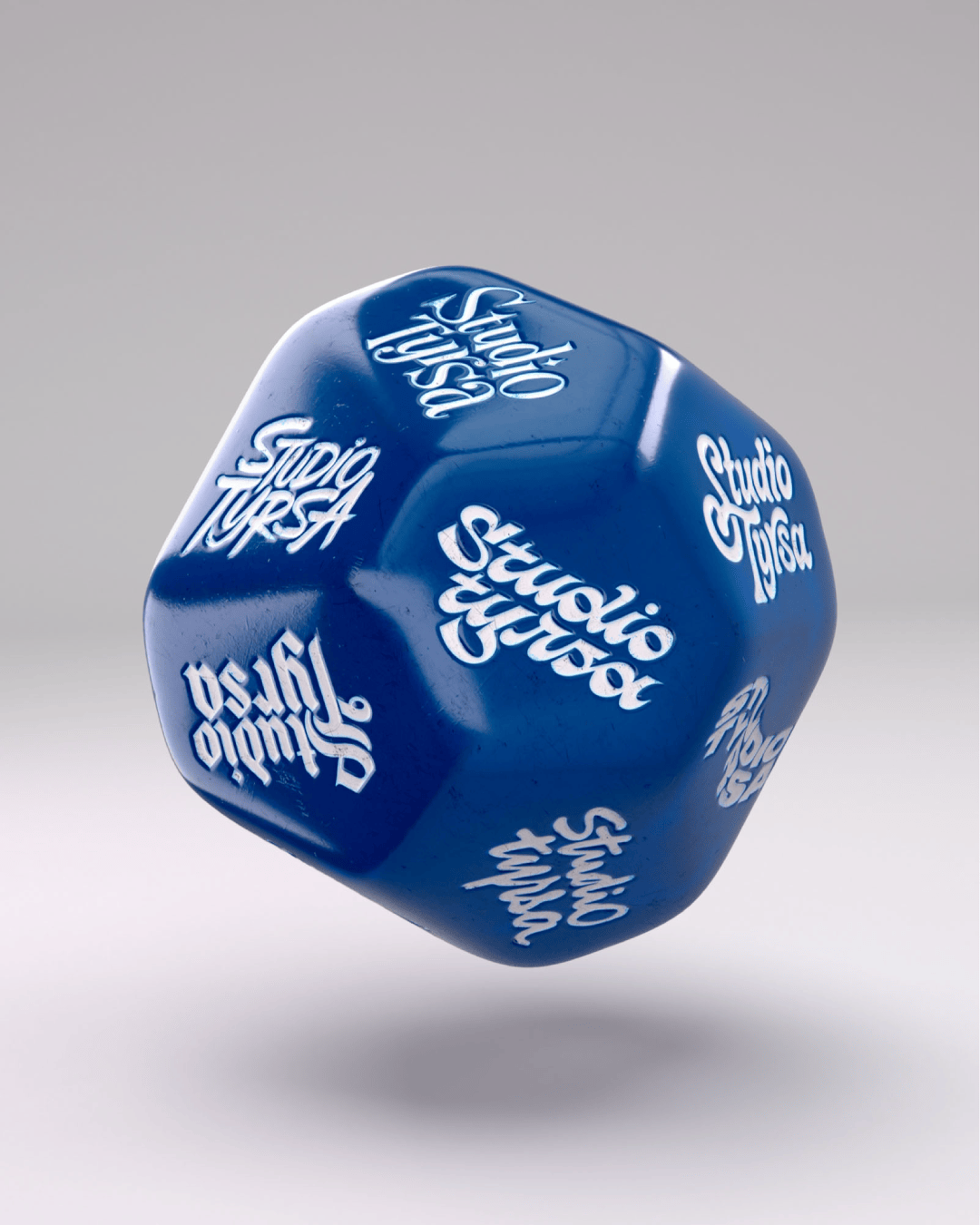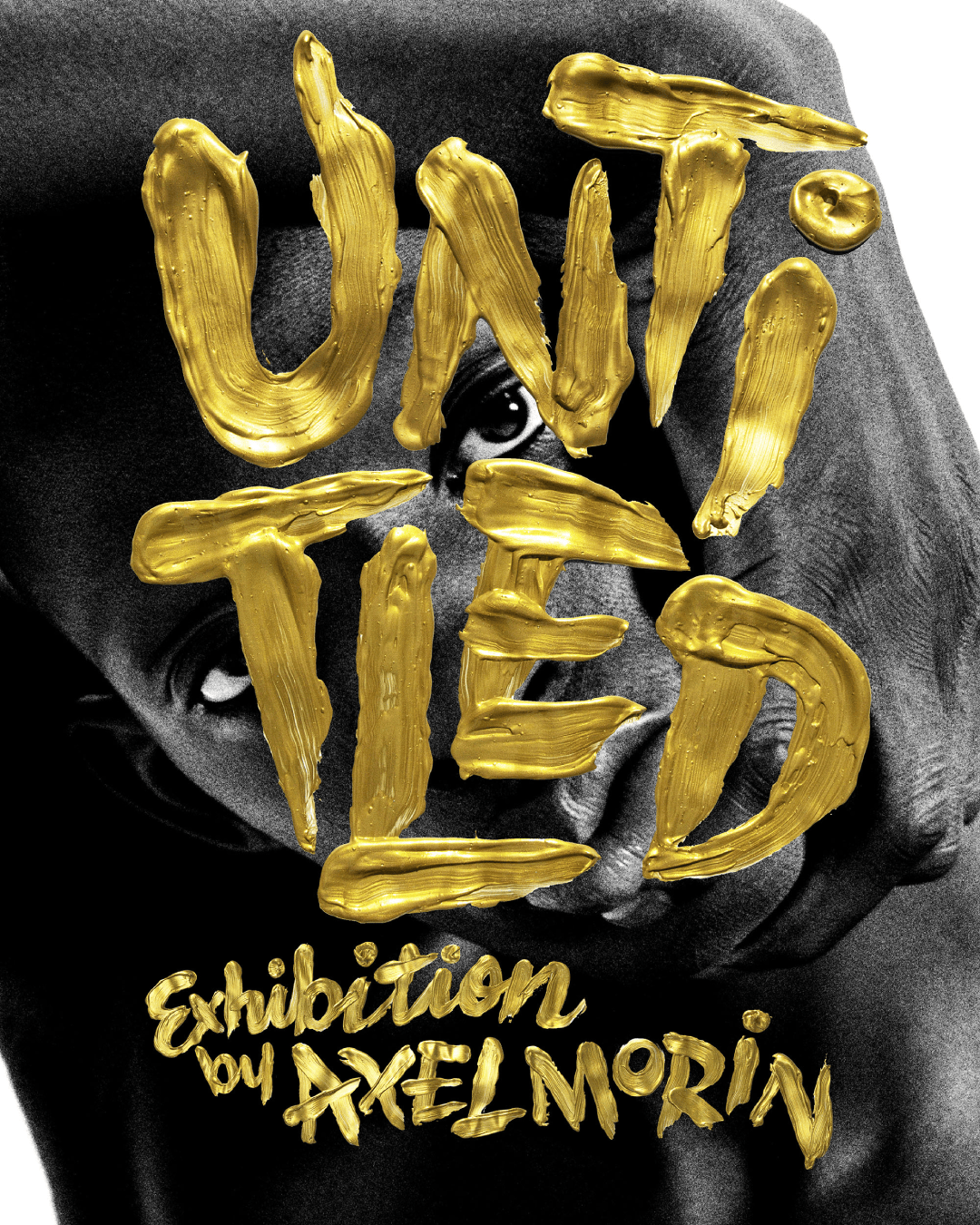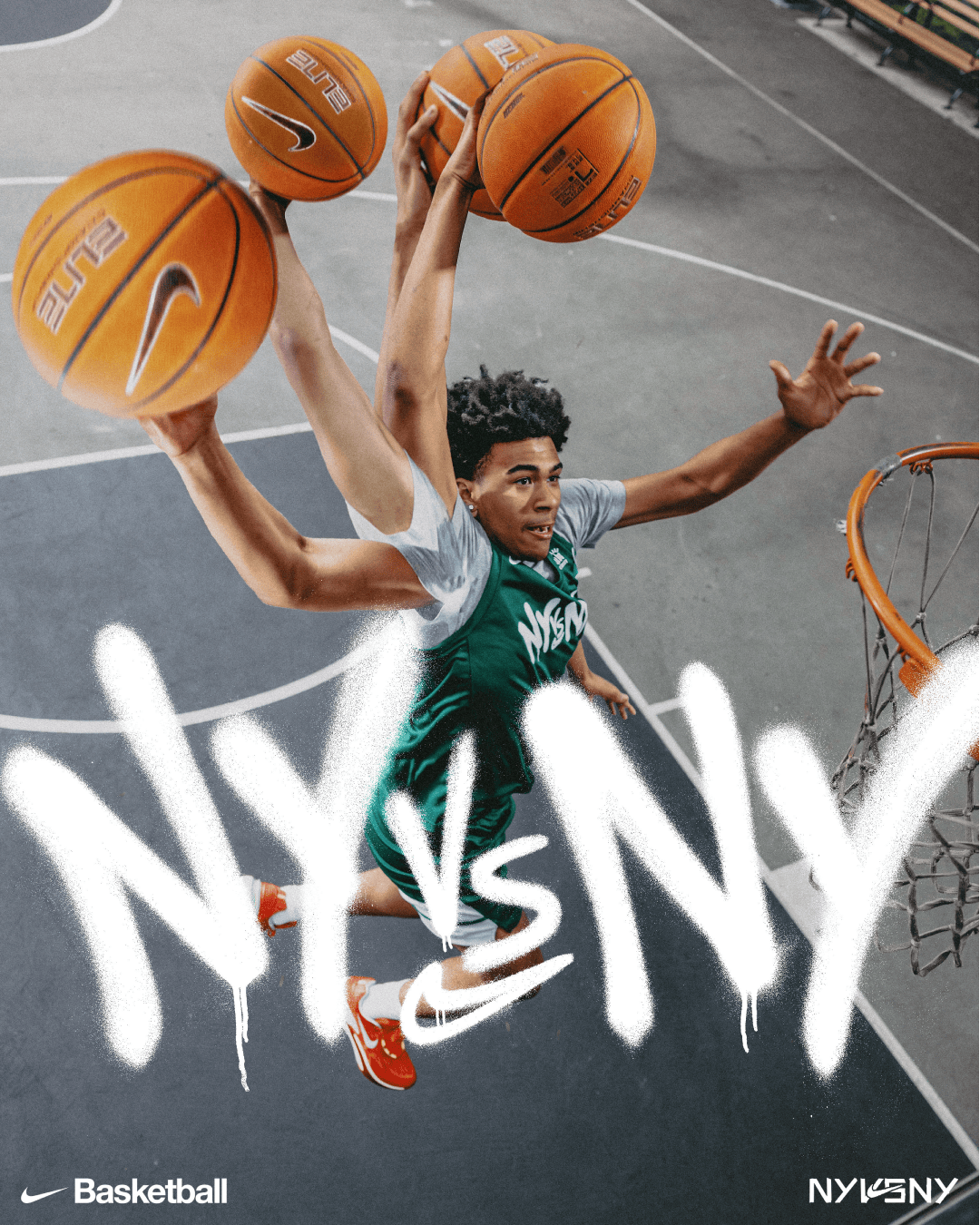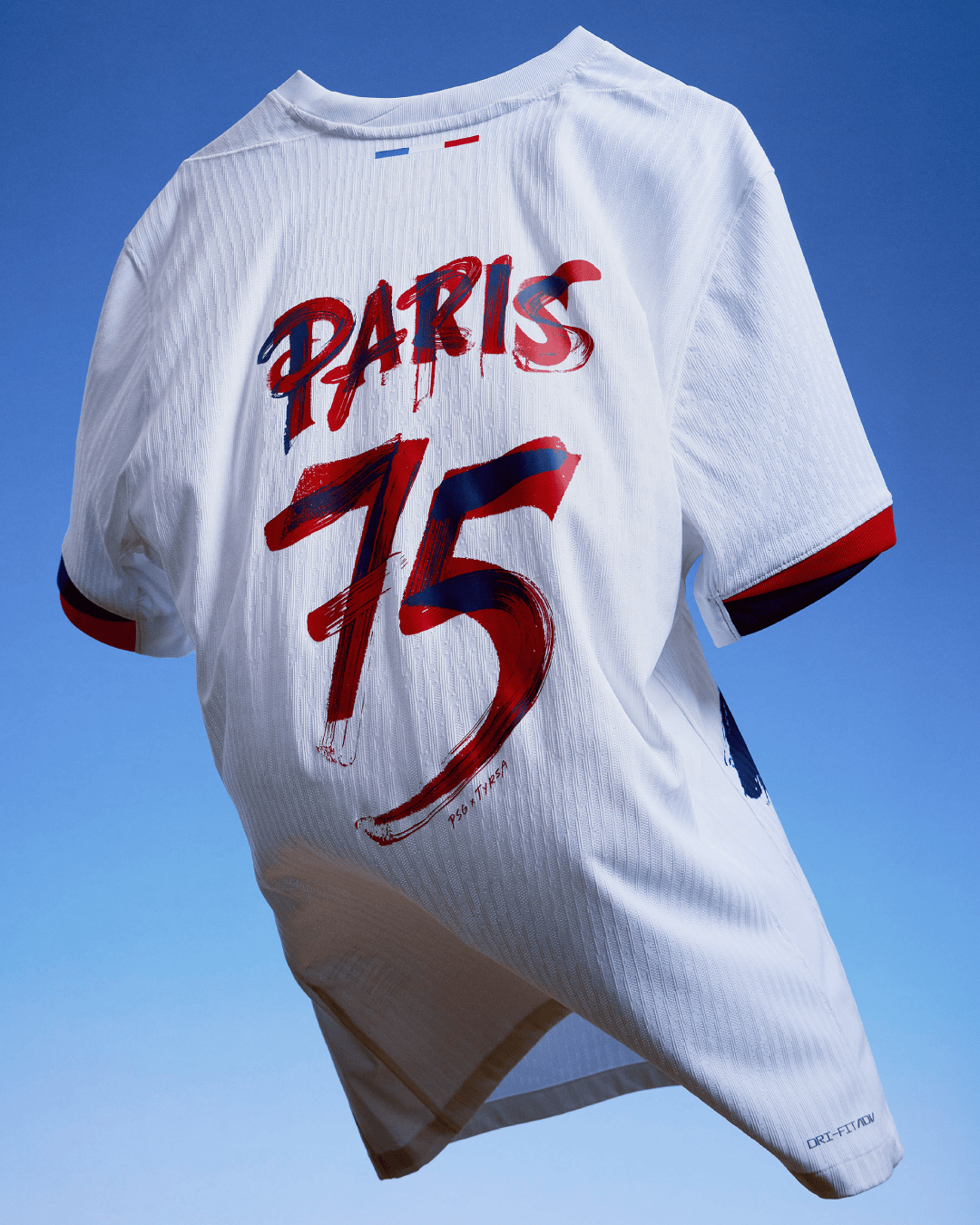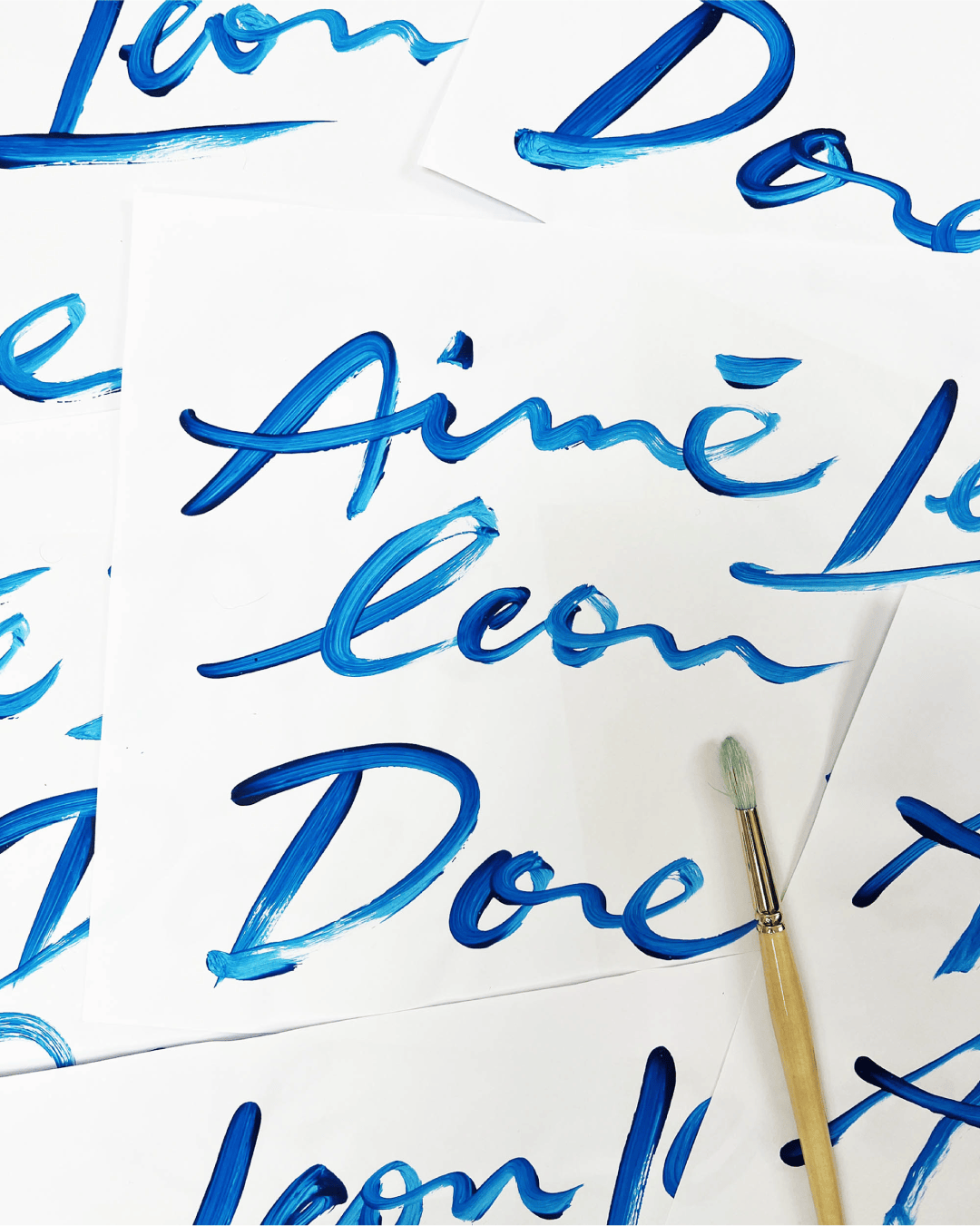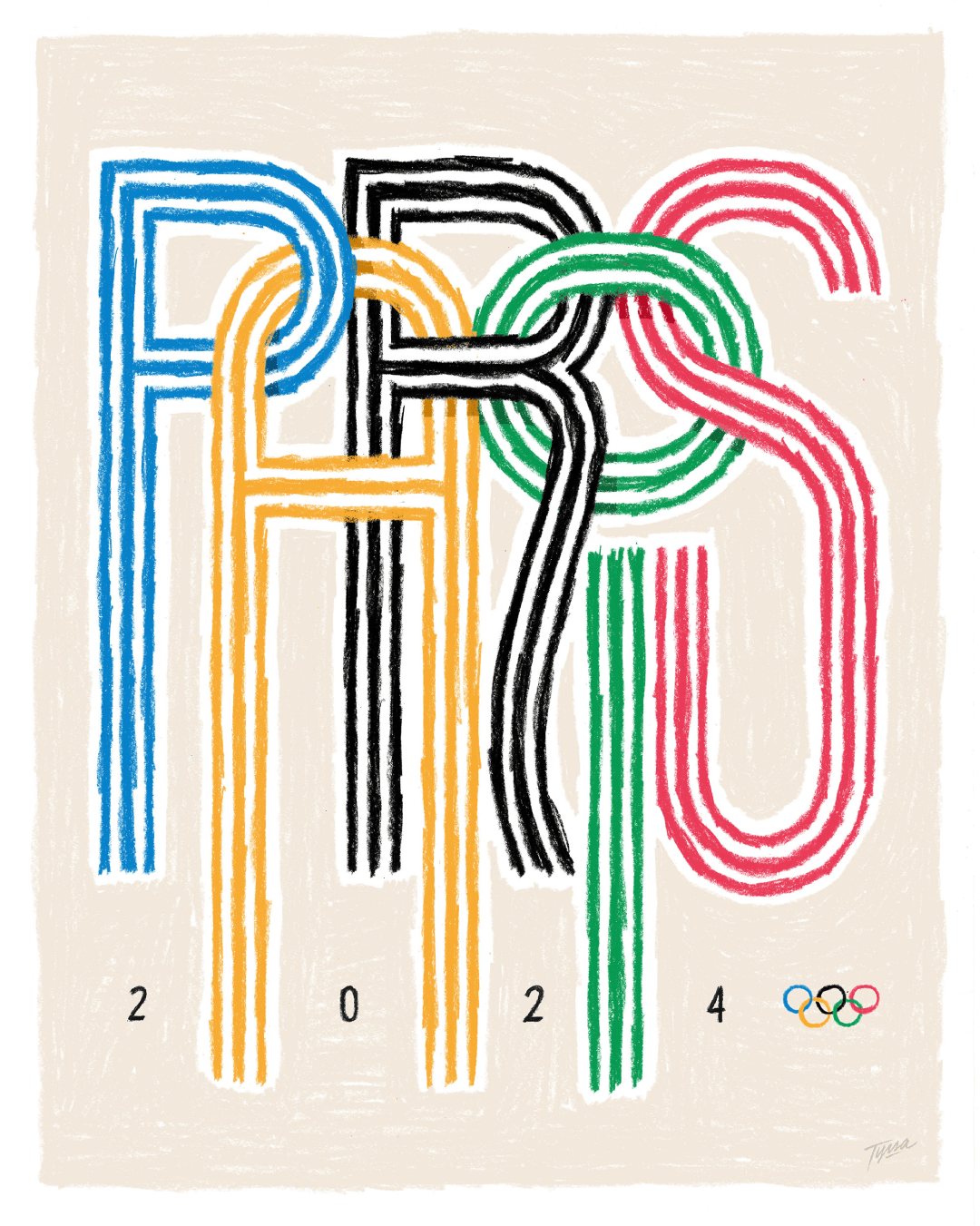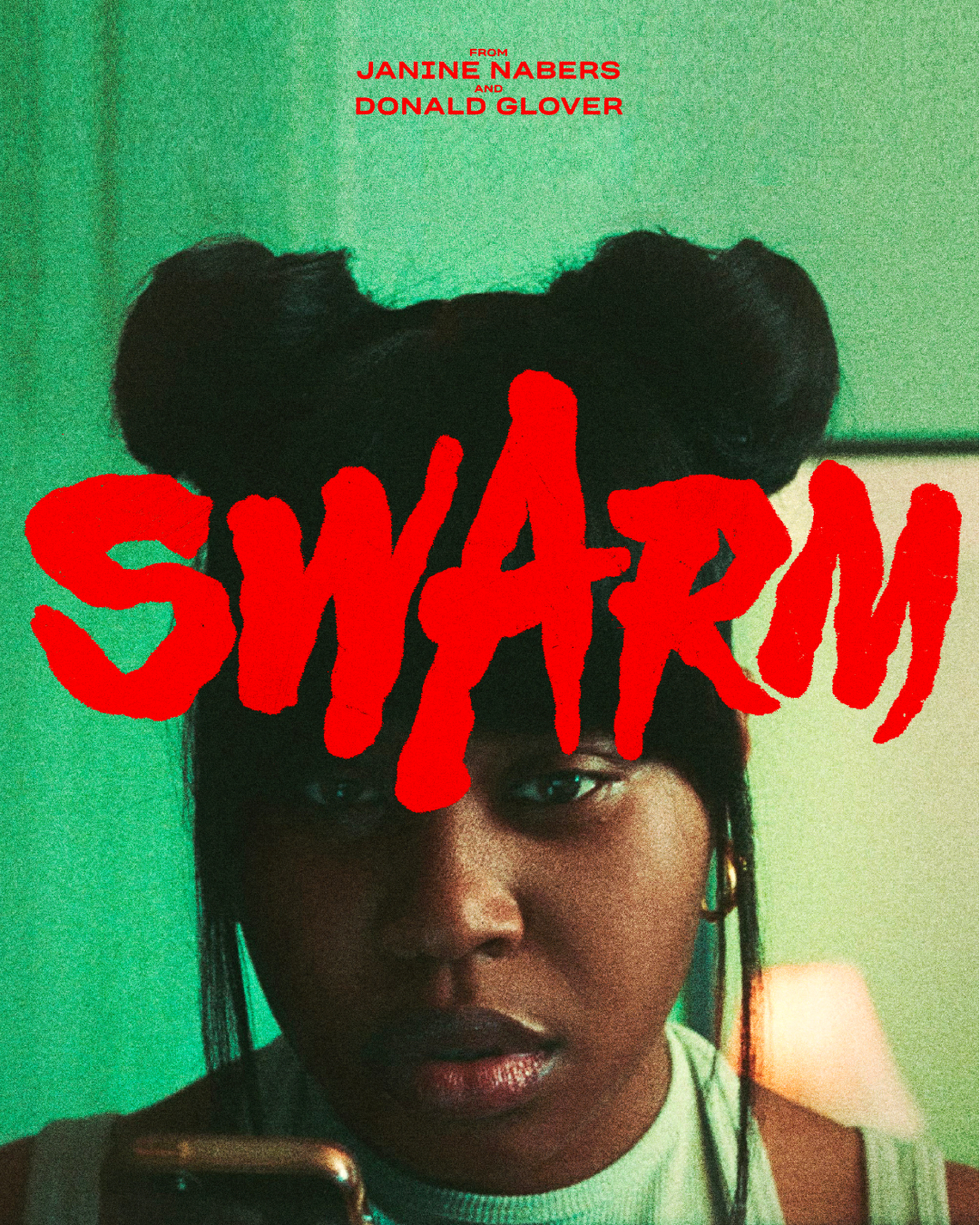
Tyrsa is a French Graphic Designer and Visual Artist renowned for his expertise in lettering and visual identity.
Born in Paris, he began his creative journey discovering graffiti as a teenager, where he developed a strong passion for typography and letterforms. Over the years, Tyrsa collaborated with major global brands such as Nike or Louis Vuitton, as well as figures in the music industry like Childish Gambino or J.Cole, crafting unique visual identities and campaigns. His work stands out for its clean, bold compositions that combine creativity and precision, bringing an innovative approach to typography that bridges art and design.
In 2023, he founded Studio Tyrsa, a creative agency dedicated to branding and graphic design. The studio works with a diverse range of clients, offering services from lettering design to full-scale brand identity development.
Today, Tyrsa continues to push the boundaries of typographic art, inspiring designers worldwide with his mastery of letters and attention to detail.